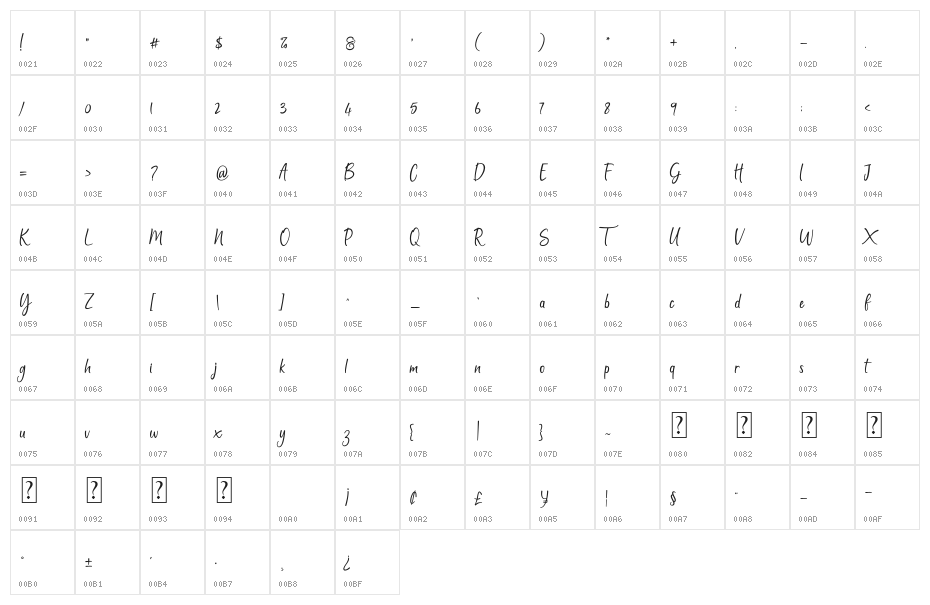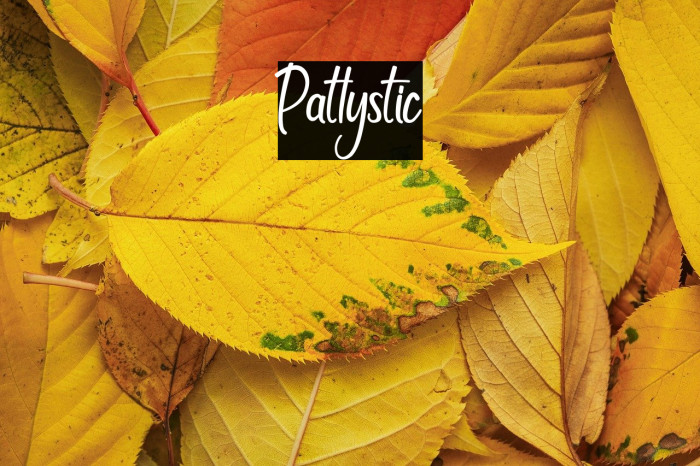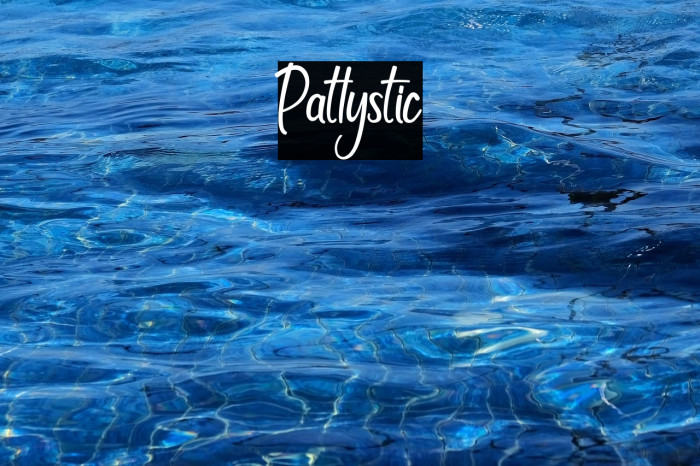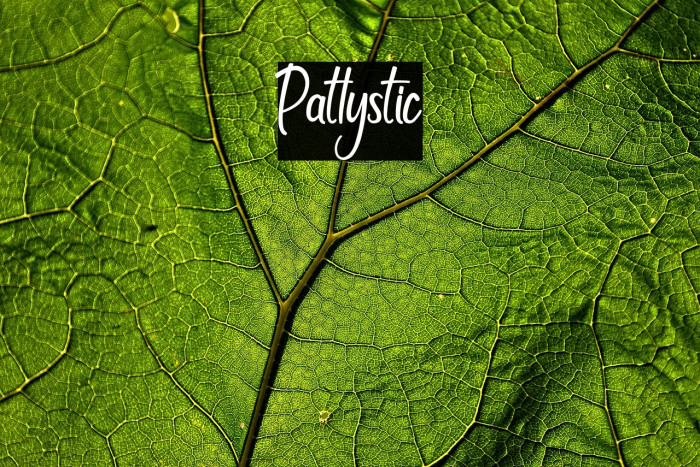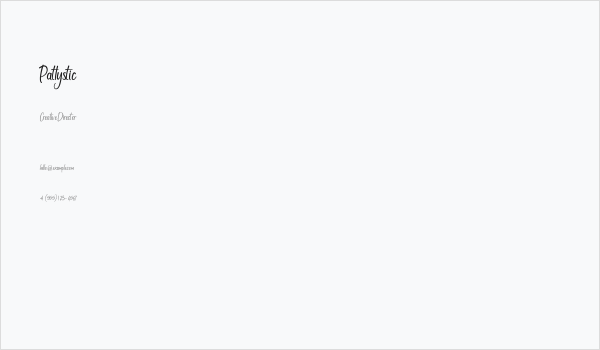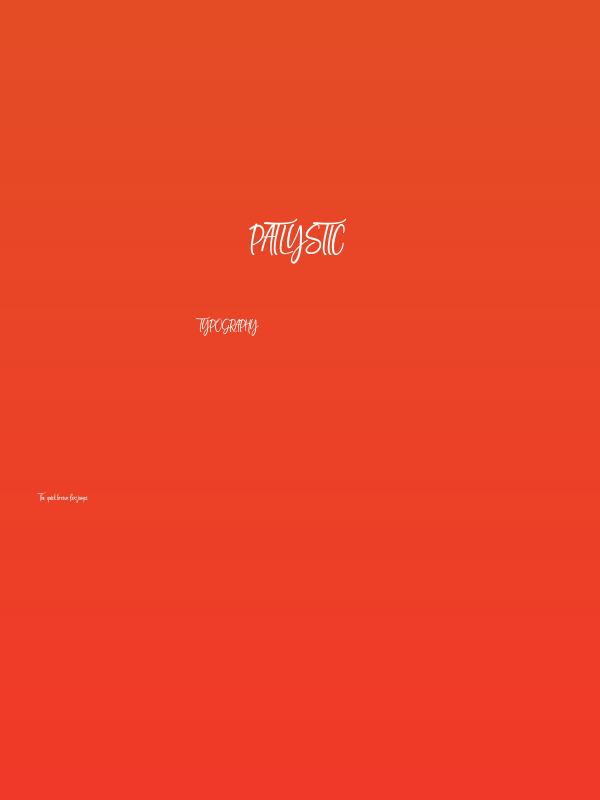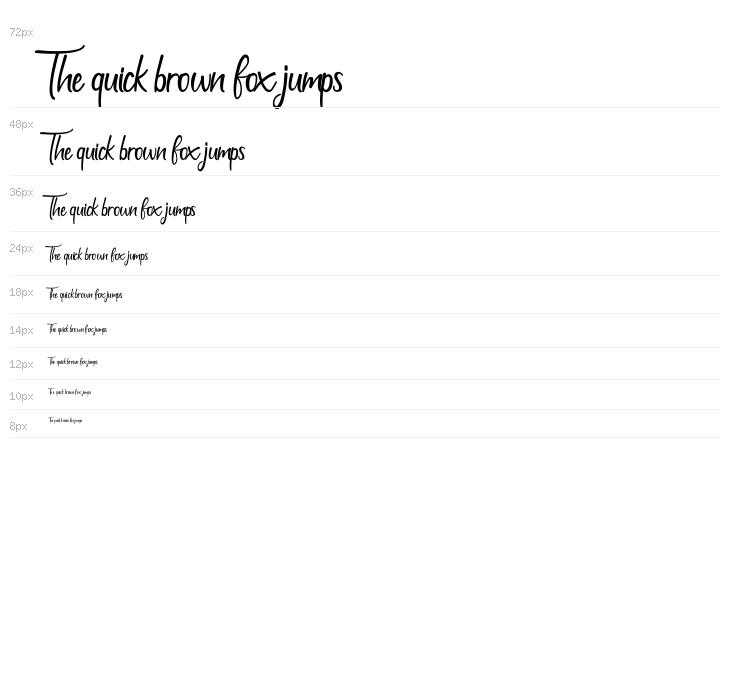
Patlystic Font
Patlystic Description
This font exudes a playful and artistic flair, characterized by its flowing, cursive style. The letters are elegantly connected, giving it a handwritten appearance that is both casual and sophisticated. The uppercase letters are tall and slightly narrow, while the lowercase letters maintain a consistent flow with subtle loops and curves. The numbers are styled to match the letters, with a similar fluidity and charm. Special characters are thoughtfully designed to complement the overall aesthetic, making this font versatile for various creative applications.
| Proposed Projects | Ideal for wedding invitations, greeting cards, personal branding, and creative projects that require a touch of elegance and personality. |